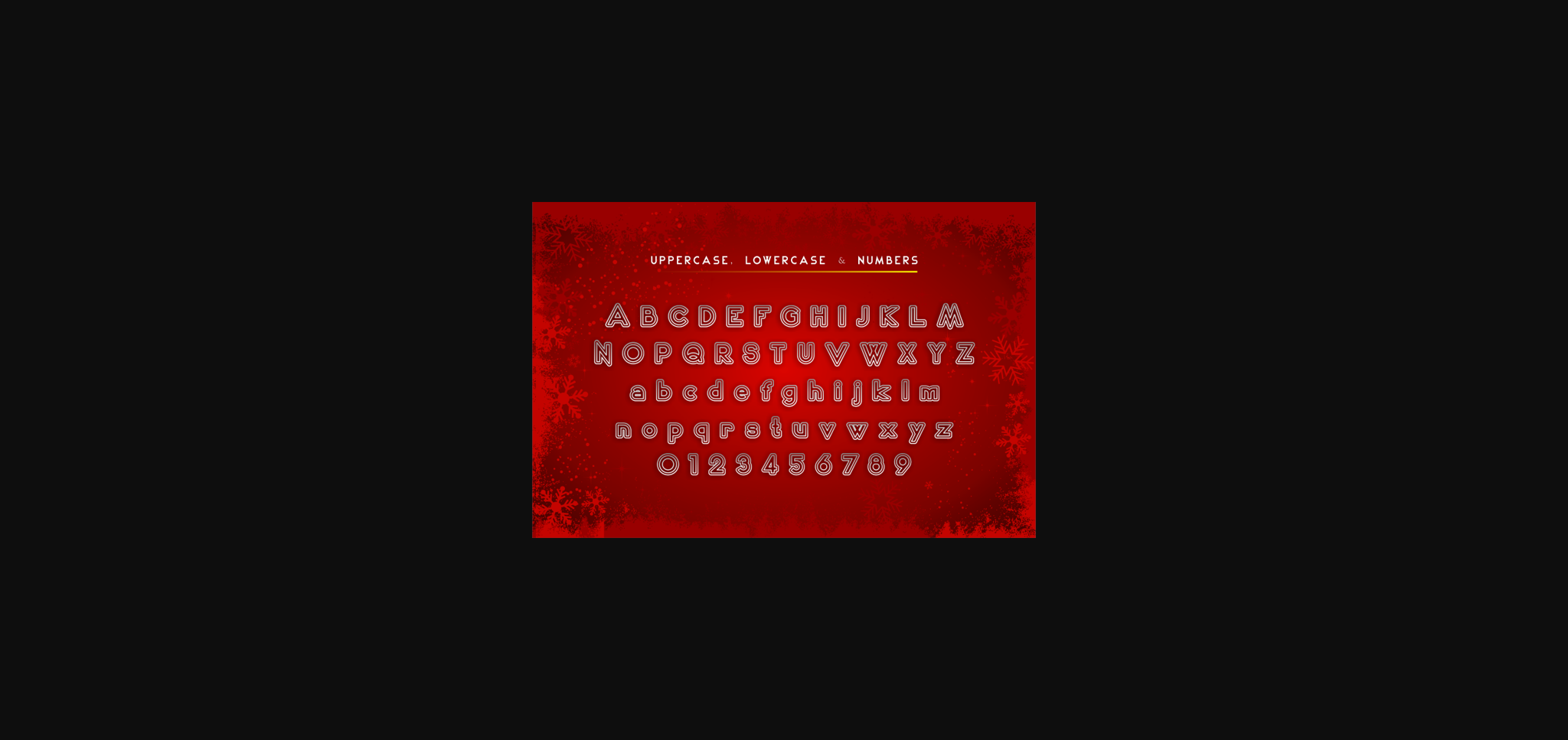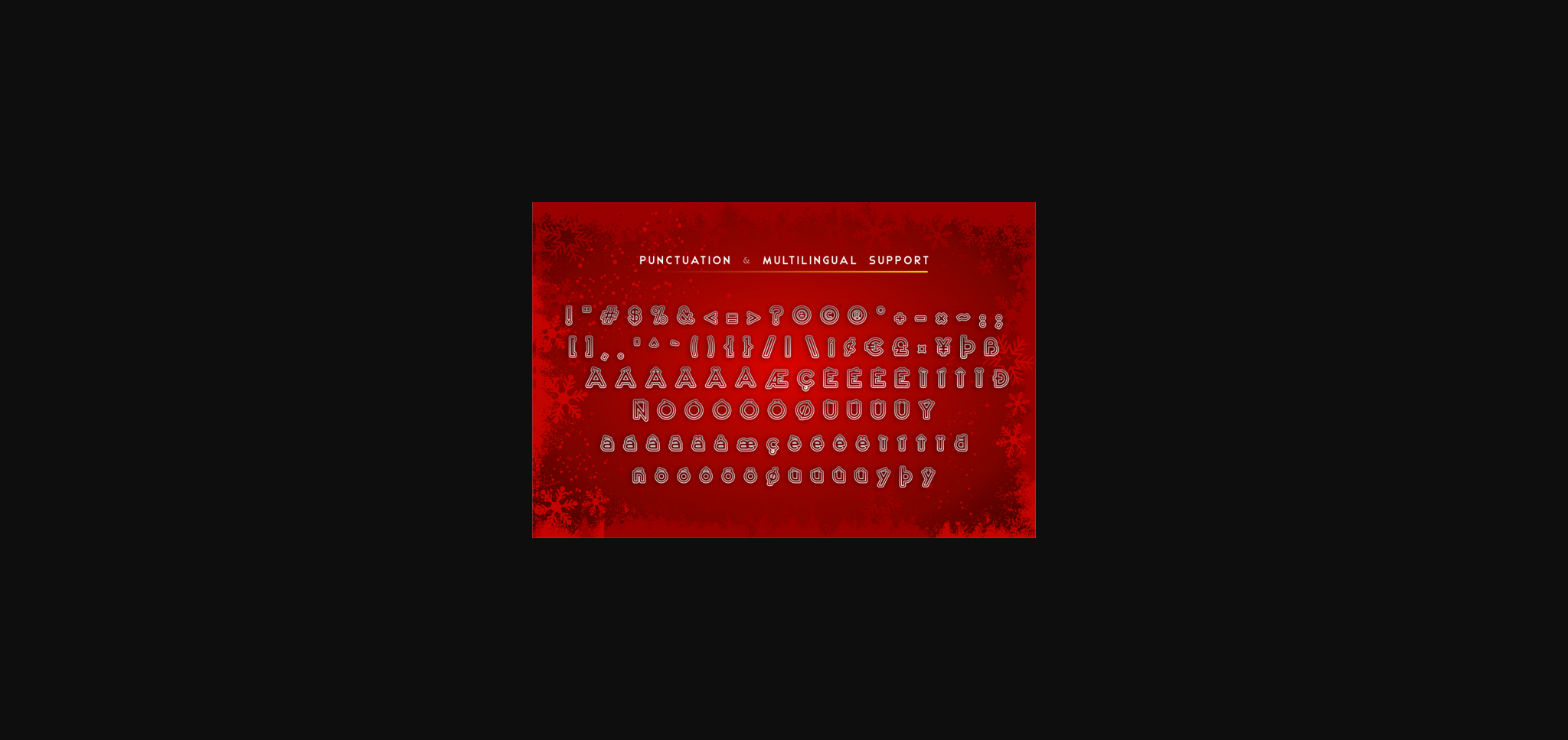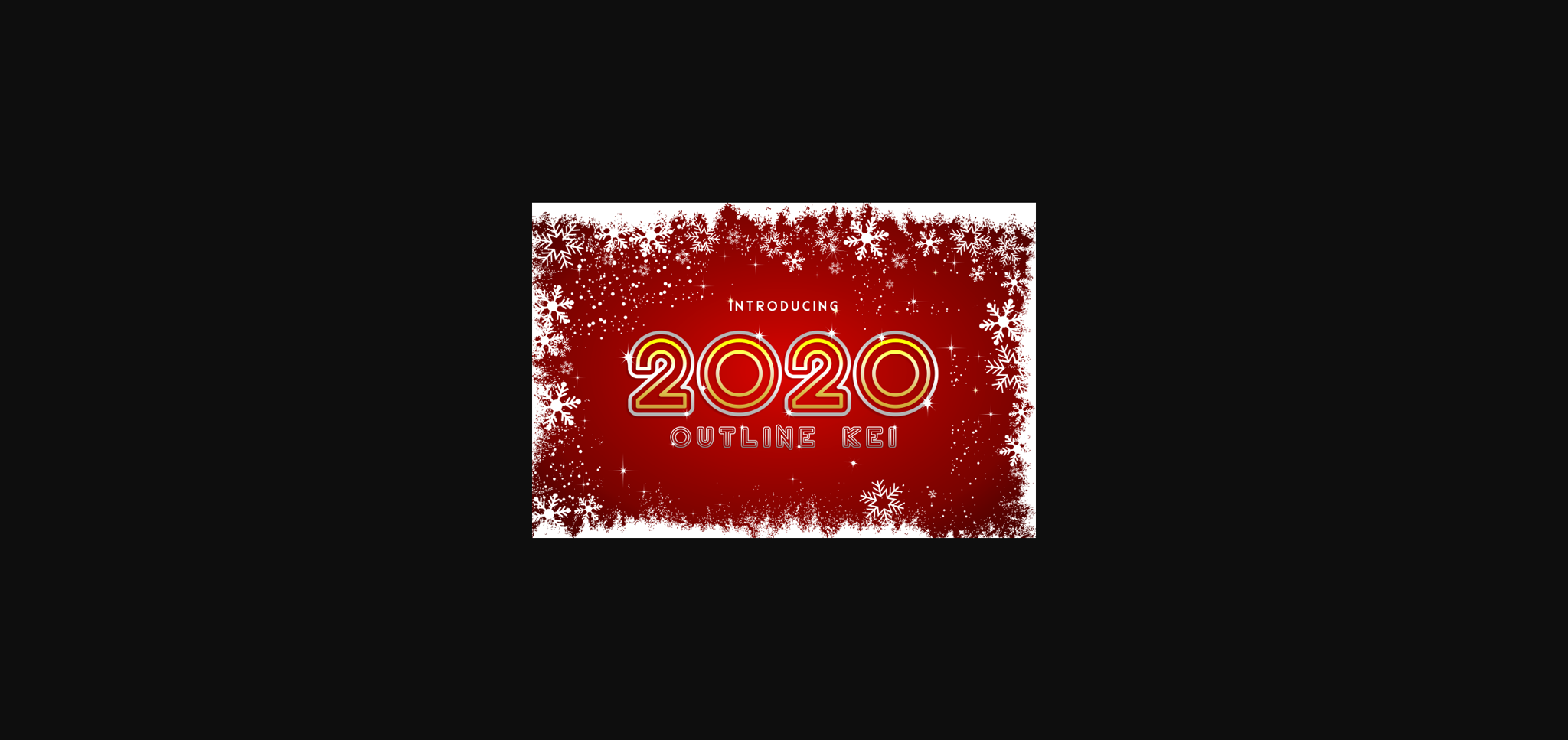
HomeSans Serif Fonts2020 Font Sans Serif Fonts 2020 Font FacebookXPinterestWhatsApp 1 of 5 ... 2020 Font Poster 2... 2020 Font Poster 3... 2020 Font Poster 4... 2020 Font Poster 5... About 2020 Font 2020 Outline Kei Display is perfect for your new years project. It is beautiful and elegant in many ways! DOWNLOAD NOW People also explored Goldside Font ZP Cracker Bread Font Medium Font Beauty Sahara Font Granotta Script Font Manchester Script Font Moonright Font Deception House of Love Font 337 0 Previous articleCherione FontNext articleCalderdale Font LEAVE A REPLY Cancel reply Comment: Please enter your comment! Name:* Please enter your name here Email:* You have entered an incorrect email address! Please enter your email address here Website: Save my name, email, and website in this browser for the next time I comment. Personal Use Free Good Mood Personal Use Free Read more about this font Just Love Personal Use Free Read more about this font Term Free Personal Use Free Read more about this font Retro Free Personal Use Free Read more about this font BLOG Where to Buy American Fonts Online in 2024 Where to Buy American Fonts Online: The Ultimate Guide for 2024 Looking for the perfect American font to elevate your design projects? You're in the... Top 10 Handwritten Fonts That Elevate Your Designs Modern Sans-Serif Fonts That Brands Love in 2025 Free Fonts Risk: Why Free Fonts Can Be Dangerous for Designers